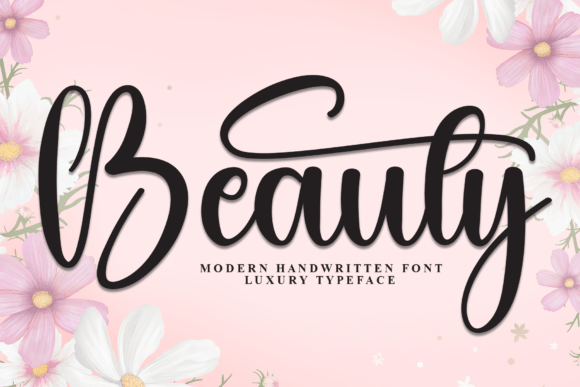
Unlocking the Timeless Charm of Beauty Font
Have you ever stared at a blank page, feeling the weight of a creative project on your shoulders? The cursor blinks, taunting you with its steady rhythm, as you search for the perfect font to bring your vision to life. It’s in these moments that we often find ourselves drawn to elegant, flowing script fonts – and one that stands out from the rest is Beauty Font.
This exquisite font is designed to add a touch of sophistication to any design, making it perfect for weddings, branding, social media, and invitations. Its smooth curves and graceful swashes evoke a handwritten, romantic feel that’s sure to elevate your text and leave a lasting impression. Whether you’re a seasoned designer or just starting out, Beauty Font is a valuable addition to your toolkit – and its versatility makes it a must-have for any creative project.
Beauty Font Key Features
• Font Family: Beauty Font is a unique, high-quality font family with 6 styles (Thin, Light, Regular, Medium, Bold, Black) to cater to various design needs.
• Unique Characteristics: Beauty Font features a modern, elegant design with subtle flair and rounded edges, making it an ideal choice for creative and professional projects.
Design Review: Beauty Font
Overall, Beauty Font is a lovely, elegant script font that adds a touch of sophistication to any design. Here are some of the things that work well:
• ✨ Elegant, flowing lines that evoke a sense of luxury and refinement.
• ✨ High-quality rendering, even at smaller font sizes.
• ✨ Wide range of languages supported, making it a great choice for international projects.
• ✨ Beautifully crafted uppercase and lowercase letters that complement each other nicely.
• ⚠️ May not be suitable for bold, in-your-face designs due to its elegant and refined nature.
• ⚠️ Can be quite thin, which may make it difficult to read in certain contexts.
• ⚠️ Limited availability of font weights and styles, which may limit its versatility.
Overall, Beauty Font is a great choice for designers who want to add a touch of elegance and sophistication to their work. While it may not be suitable for every project, its high-quality rendering and beautiful design make it a great addition to any font collection.
Beauty Font is perfect for use in:
• Wedding invitations and stationery
• Branding and logo design
• Typography-based art and graphics
• Magazine and newspaper layouts